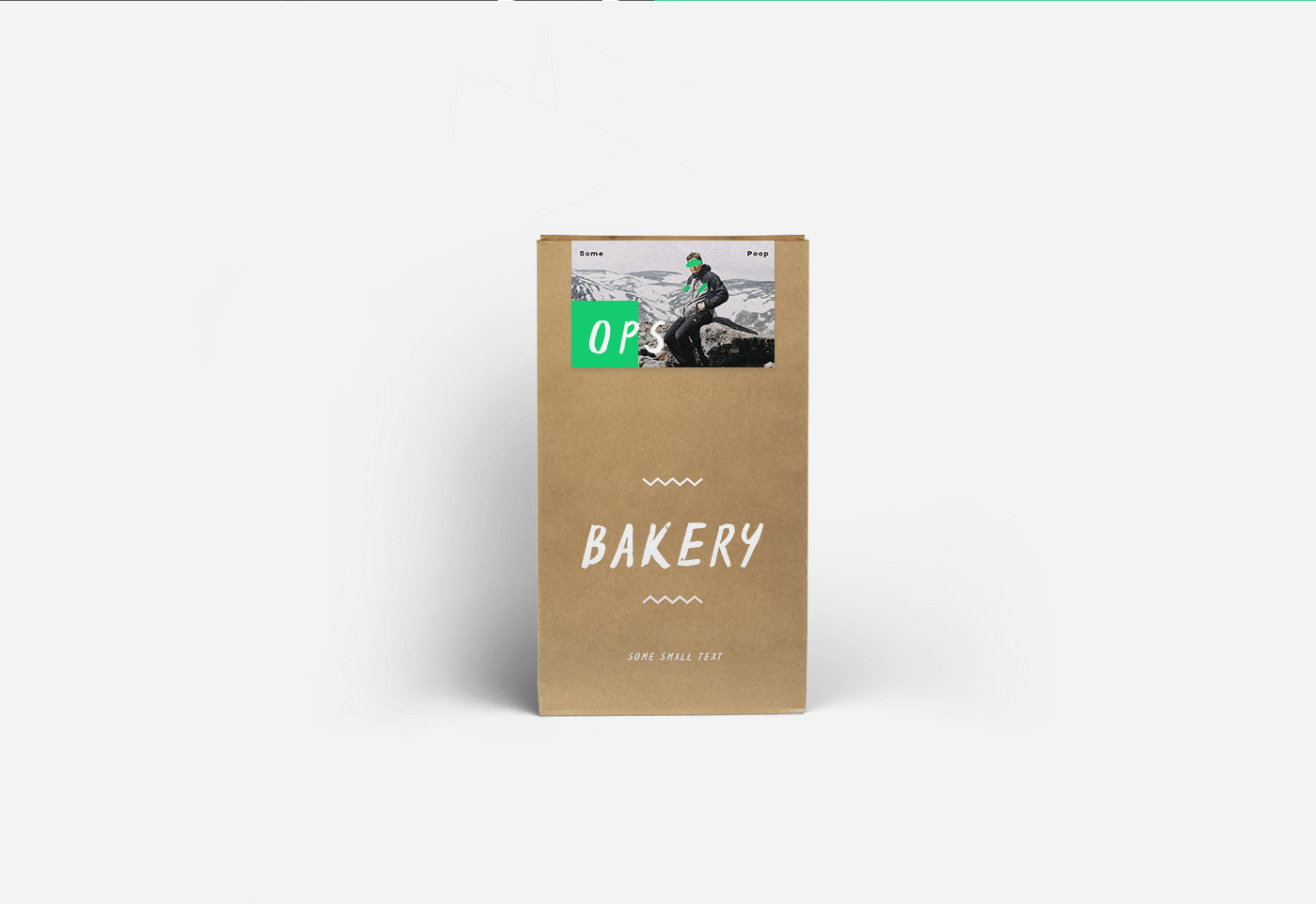
Espa Free Brush Font
by Krišjānis Mežulis
Espa is a free brush font made by Ieva and Krisjanis Mezulis. It features a brush made feel and look. The font suits best big headlines and gives them a personal touch.
Espa Free Brush Font
by Krišjānis Mežulis
Espa is a free brush font made by Ieva and Krisjanis Mezulis. It features a brush made feel and look. The font suits best big headlines and gives them a personal touch.